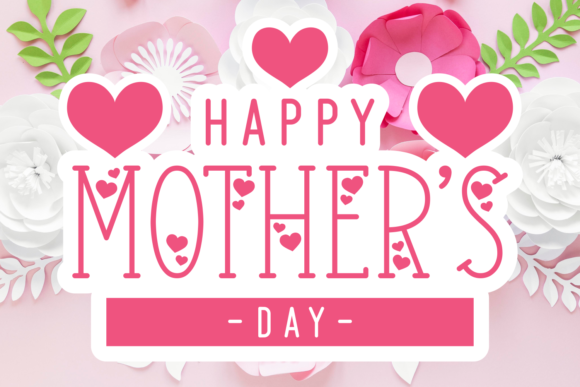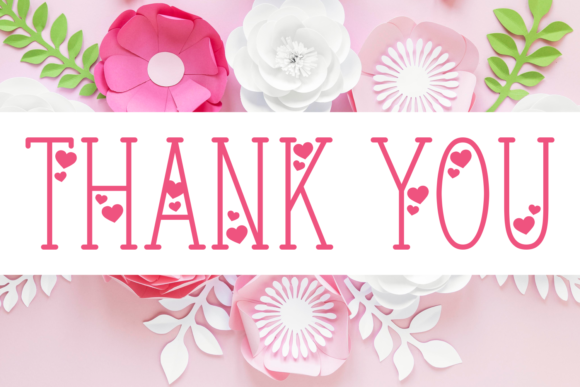
Introduction to Lovlyn Font
Lovlyn is a gorgeous decorative font, masterfully designed to impress.
With incredibly playful and lovable characters that are surprisingly easy to read, this font can easily elevate the look of any creation and design .
Key Features of Lovlyn Font
Why Choose Lovlyn Font?